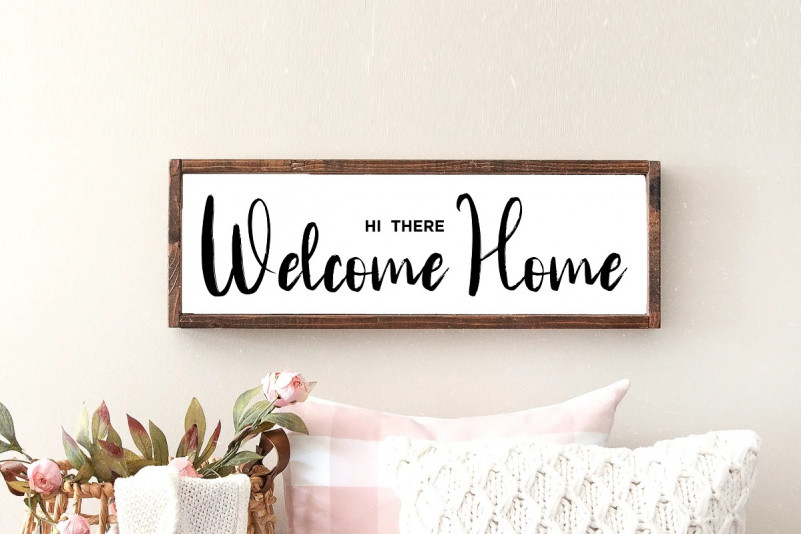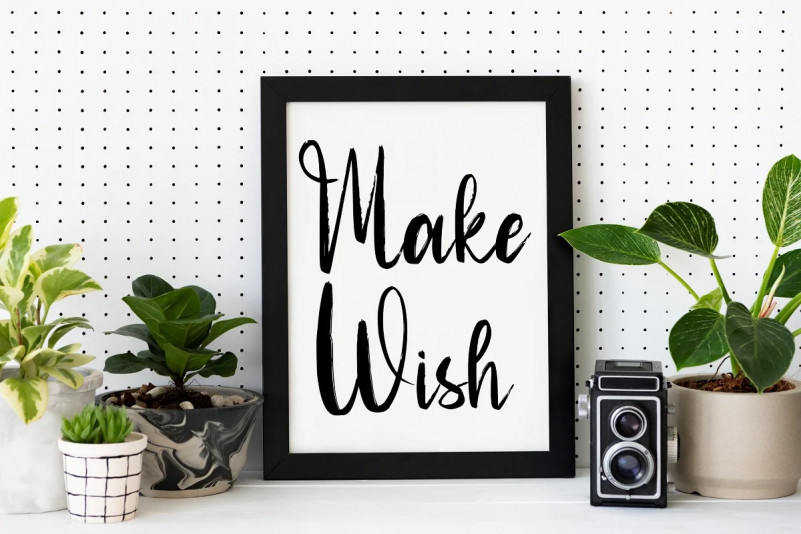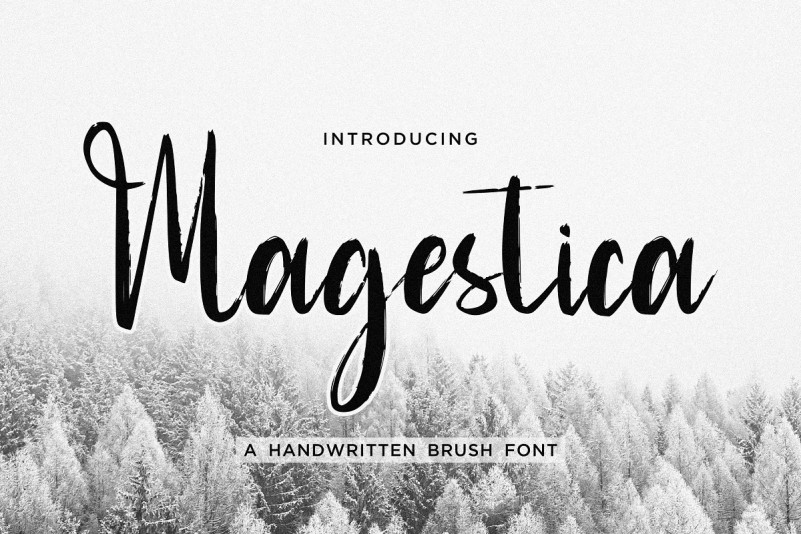
Magestica Font
Magestica Brush Font is a Modern Handwritten Brush Font
Magestica is perfect for product packaging, branding project, megazine, social media, wedding, or just used to express words above the background.